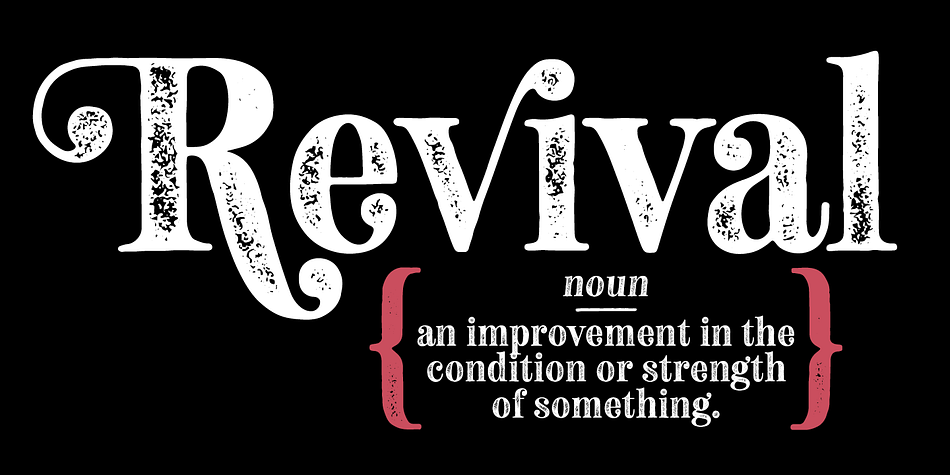
Neato Serif Rough
Designed by Adam Ladd, Neato Serif Rough is a display serif and hand display font family. This typeface has two styles and was published by Adam Ladd.
Neato Serif Rough is a hand drawn, quirky serif font with a textured, letterpress appearance. It features stylistic alternates, standard and discretionary ligatures, and swashes to add options and flair to your typography. The typeface has a unique blend of sophistication with it’s high contrast of thicks and thins and also playfulness with the distinct ball terminal characters—especially evident in the lowercase “e”. It is slightly condensed and great for display headlines, titles, packaging, branding, and more.
Features include: stylistic alternates for more options; swash characters for more personality in both upper and lowercase; standard ligatures for classic combinations like “ffi” and “tt” and more; discretionary ligatures for playful combinations like “ri” and “gi” and more.
This is the textured companion of the original Neato Serif font family.
Designer Adam Ladd